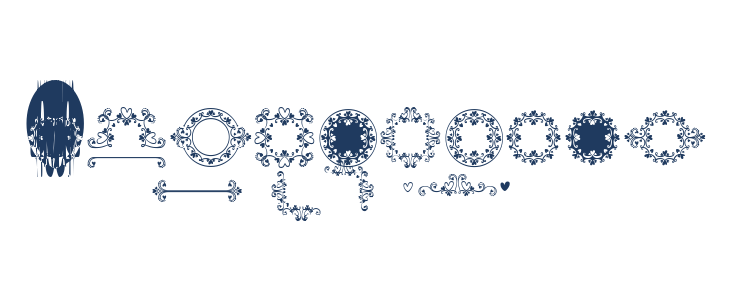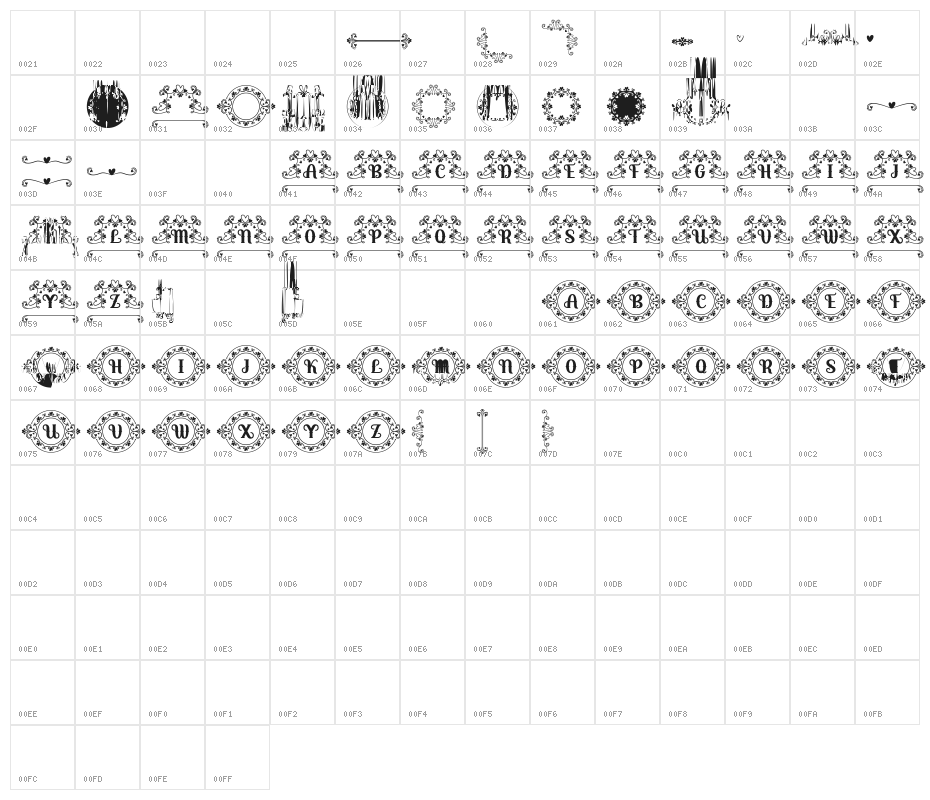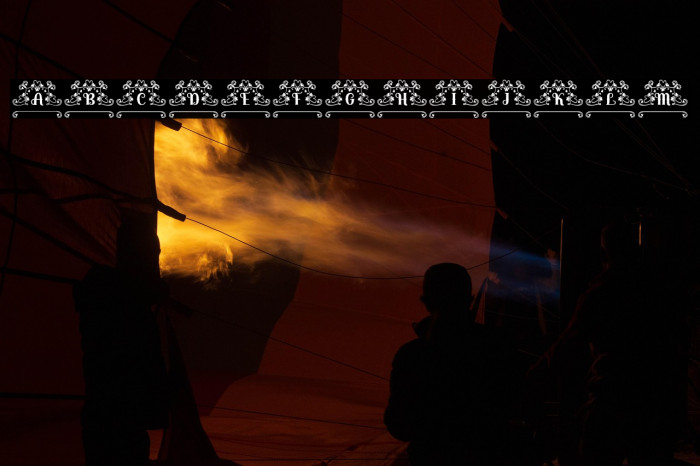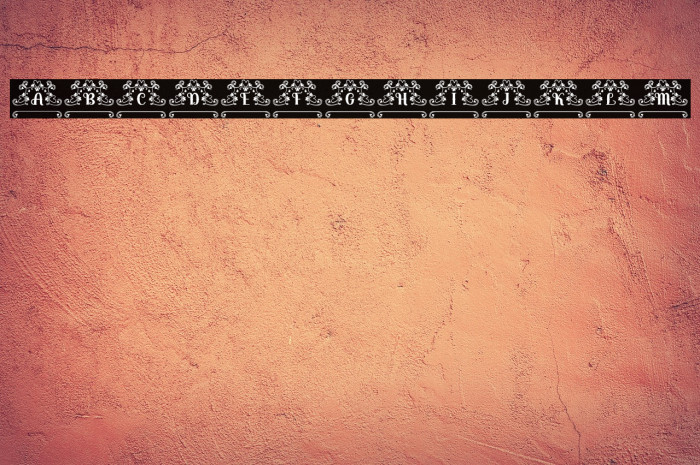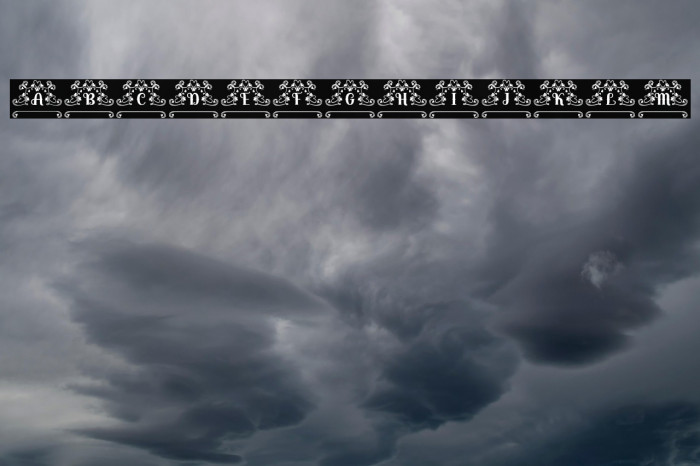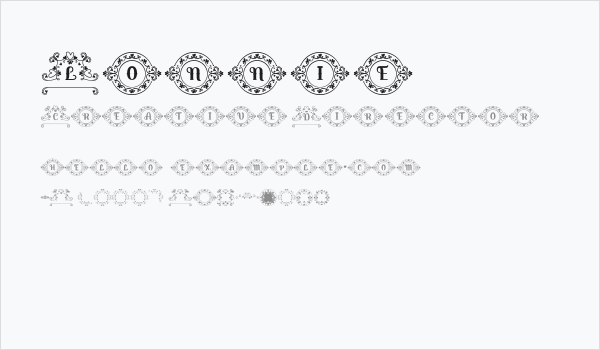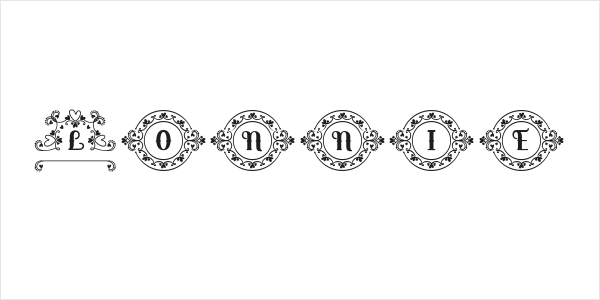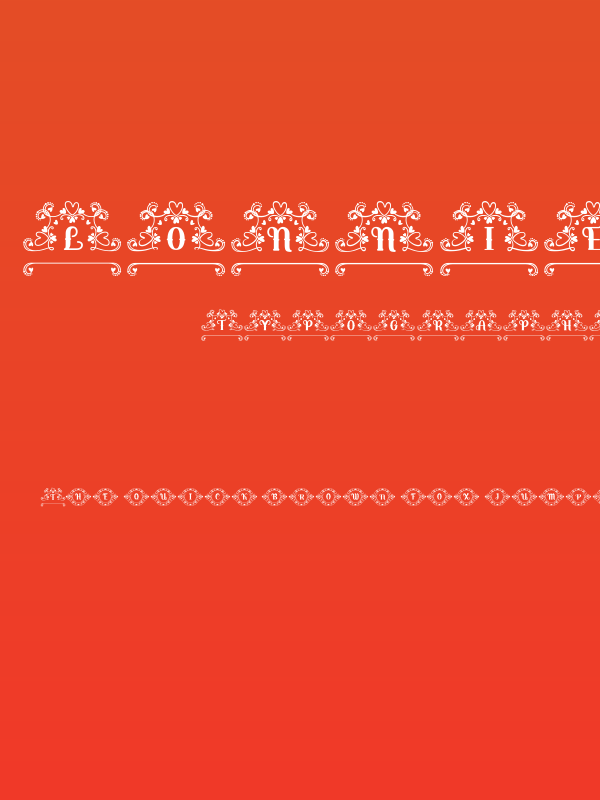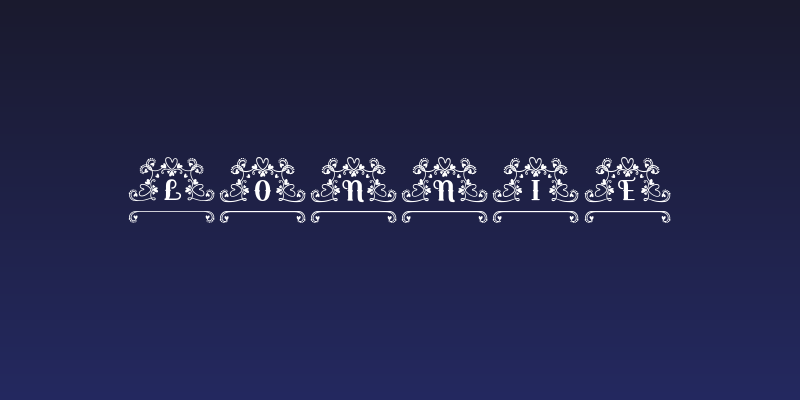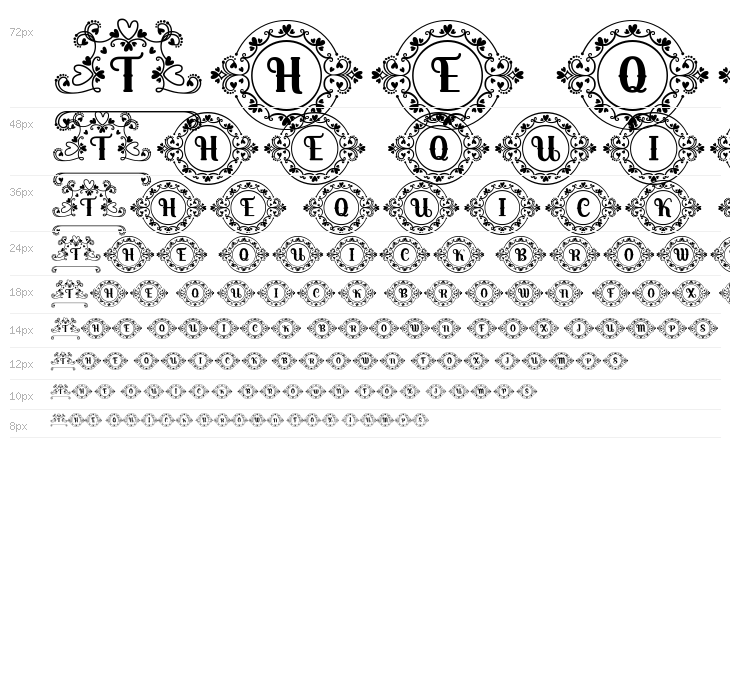
Lonnie Font
Lonnie Description
This font is an ornate and decorative typeface, characterized by intricate floral and swirl embellishments surrounding each letter. The uppercase letters are enclosed within elaborate circular frames, adding a sense of elegance and sophistication. The design is reminiscent of vintage or Victorian styles, making it highly decorative and visually striking. The font's intricate details make it suitable for special occasions where a touch of luxury and refinement is desired. It is not suitable for body text due to its complexity but can be effectively used in headlines or as decorative elements in design projects.
| Use Case | Headlines, Decorative elements |
| Proposed Projects | Ideal for wedding invitations, luxury branding, vintage-themed designs, and decorative headlines. |